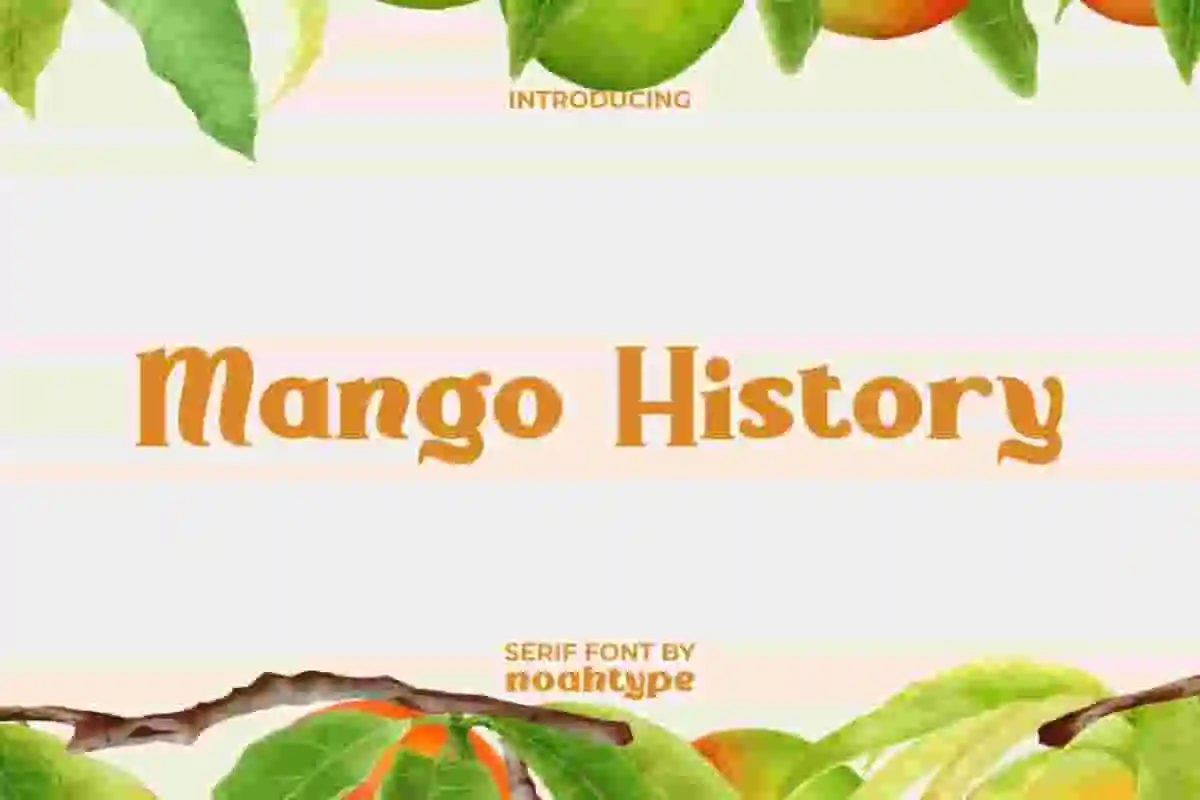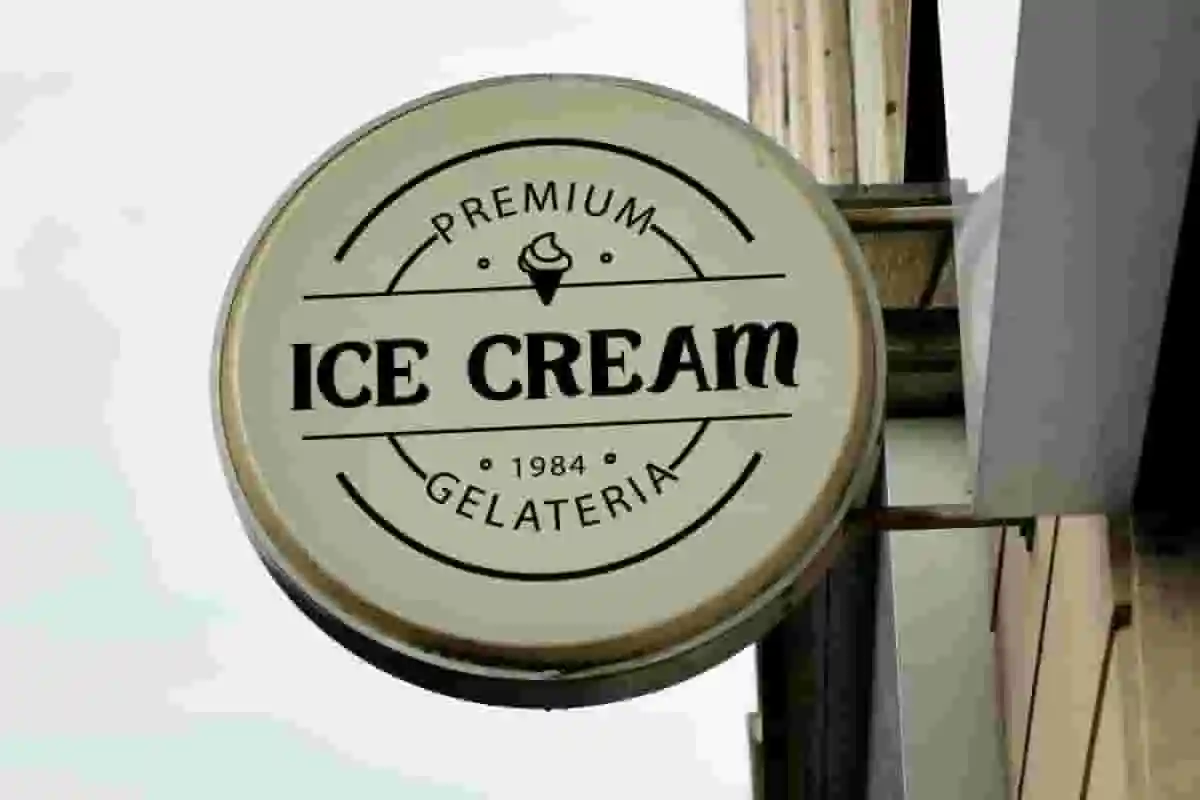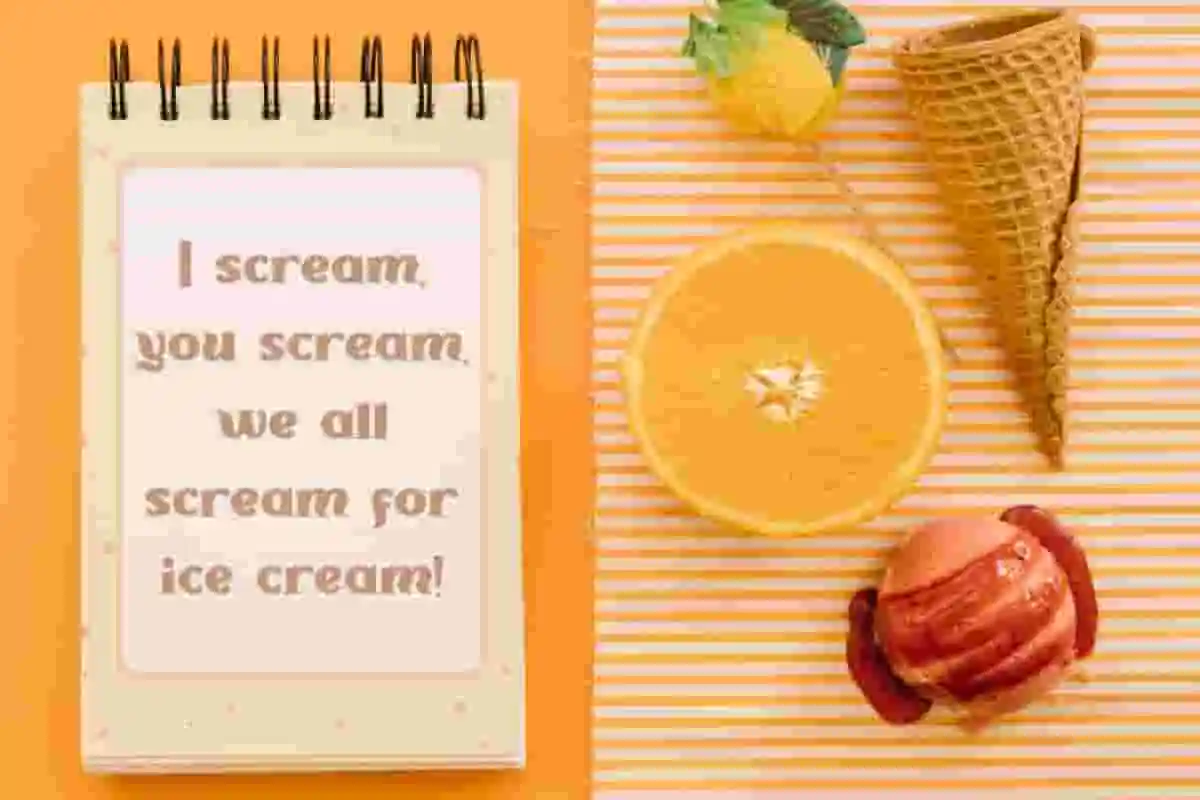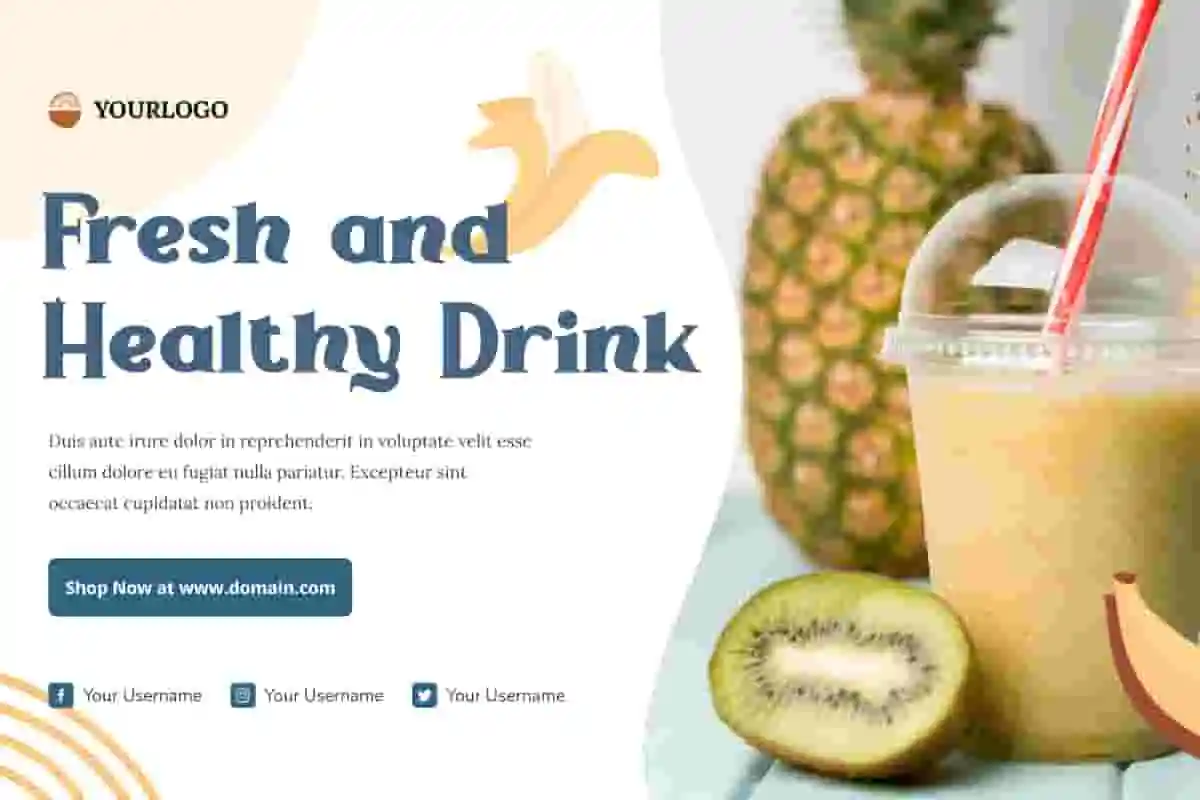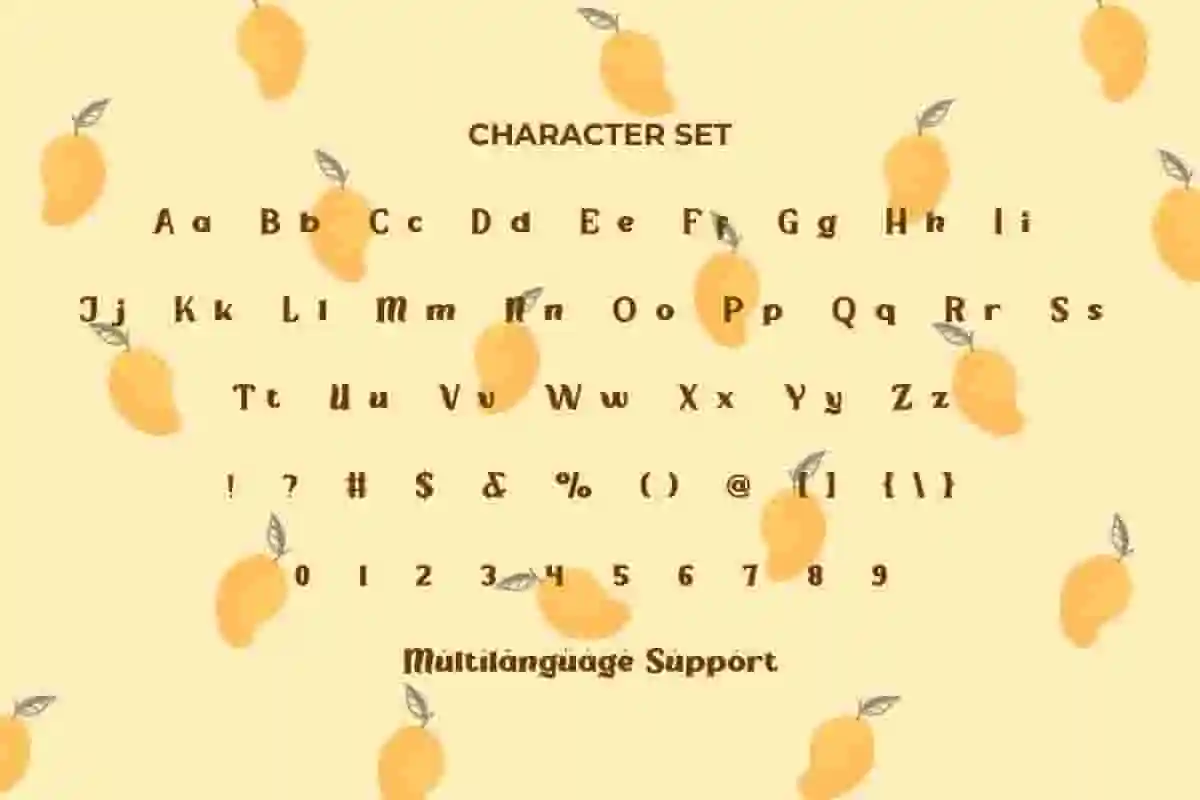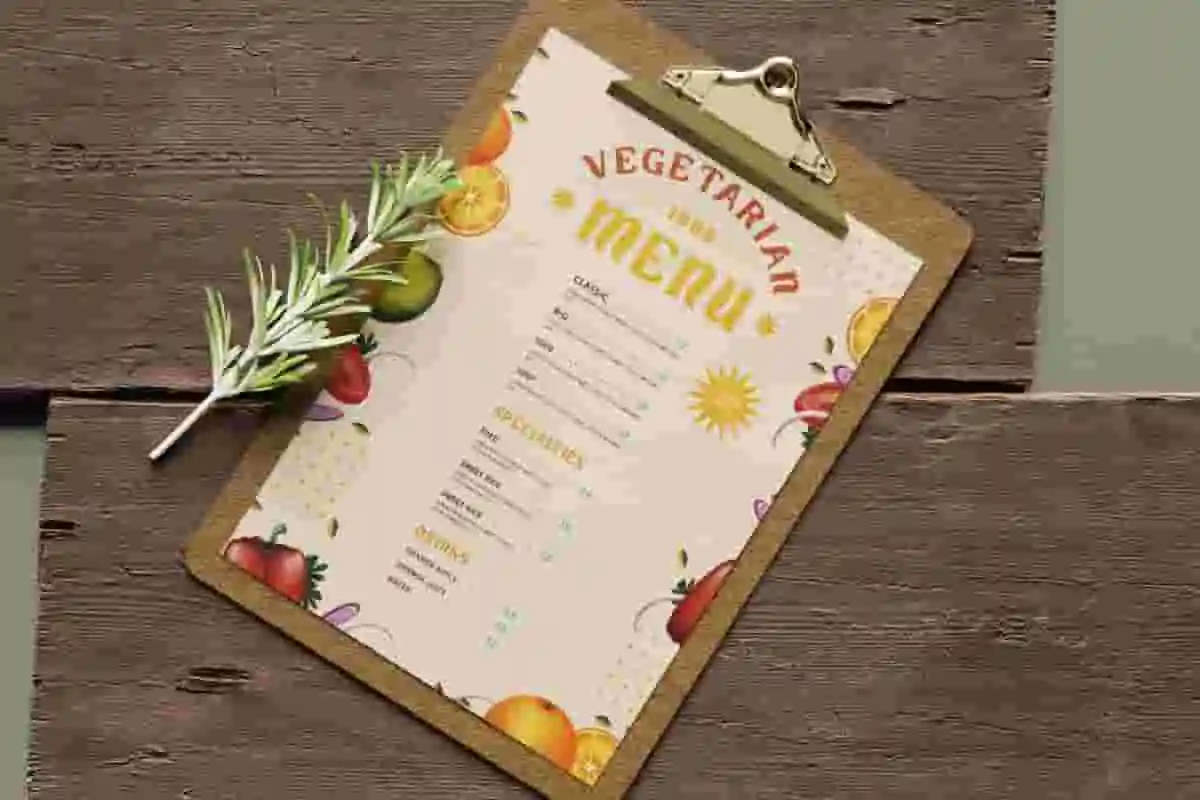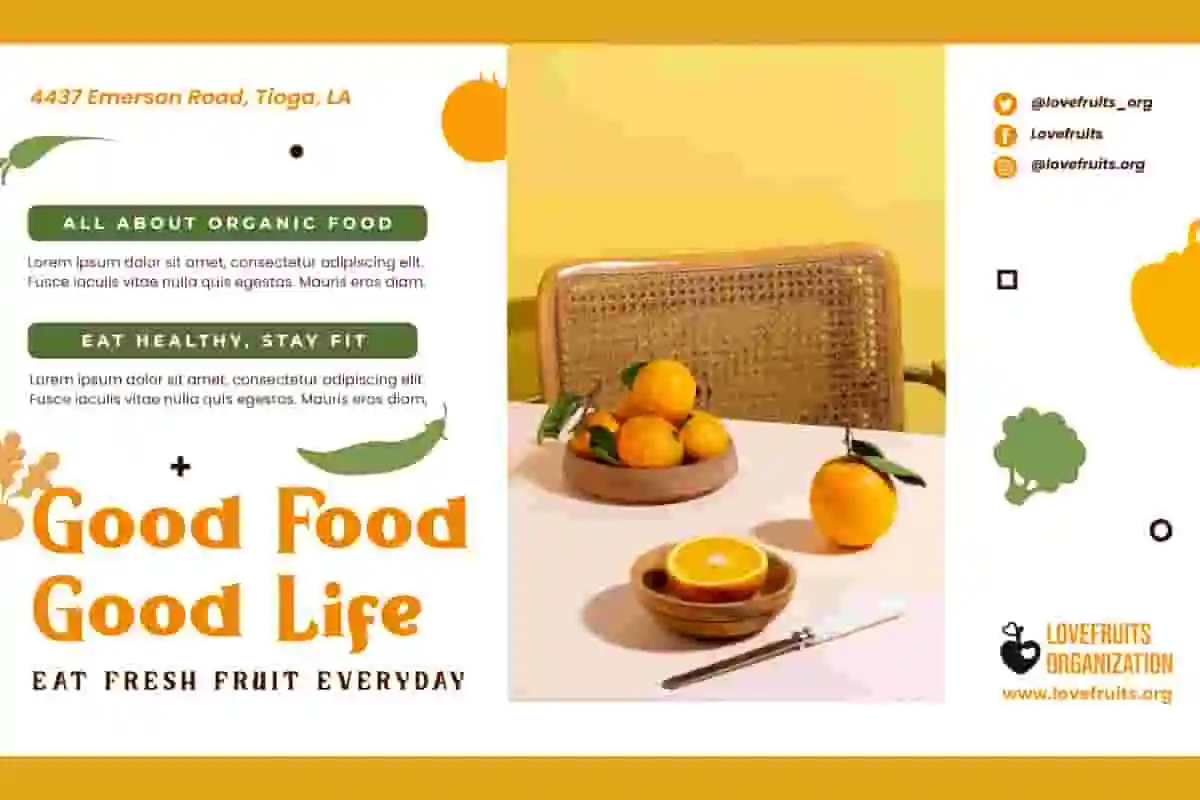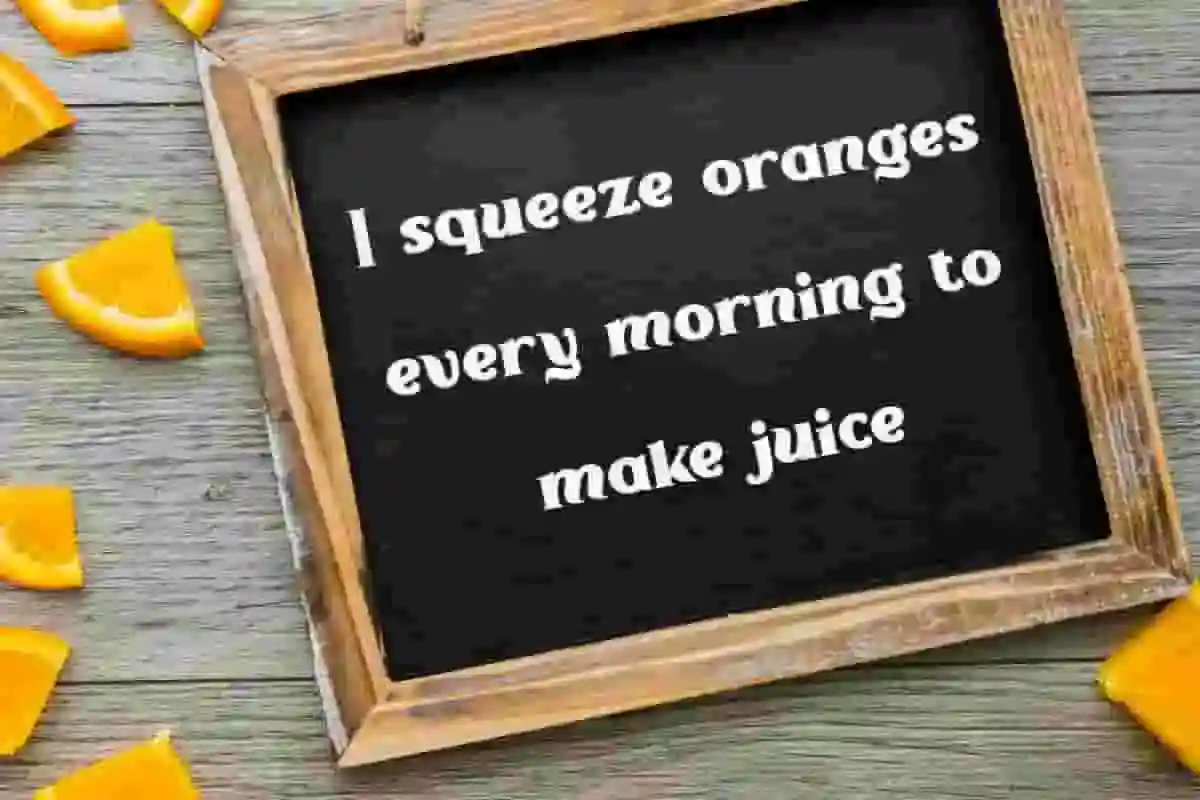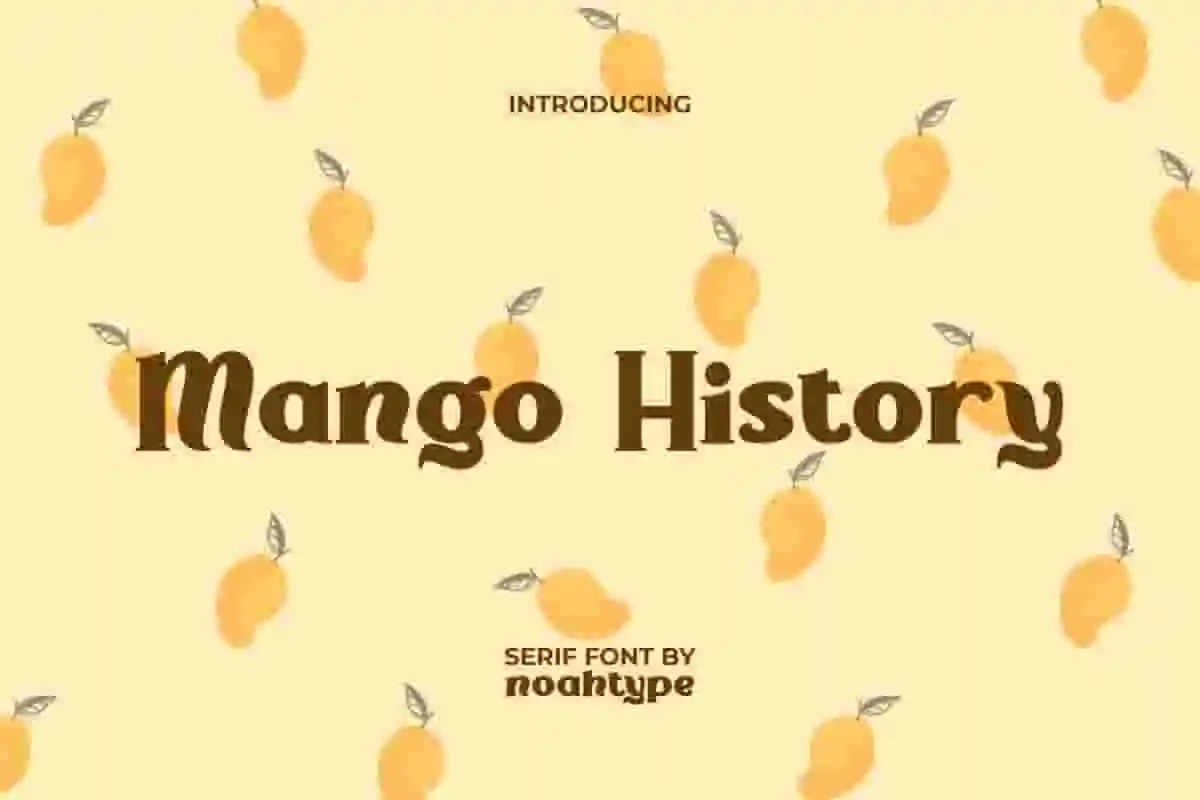
Mango History Font is an adorable and fresh serif font. Even though it has a simple style, this font can give a sweet impression and is easy to read. It will be perfect for brand image, cover, custom design, invitation, label, marketing material, menu, poster, product packaging, quotes, signage, stationery, web, and many more!
Mango History Font includes full set of Uppercase and Lowercase Basic Characters, Numerals and Punctuation. This font will be perfect choice for many industries, such as advertising, beauty product, boutique, cafe, event or festival, jewelry and accessories, photography, printing, publishing, restaurant, etc.